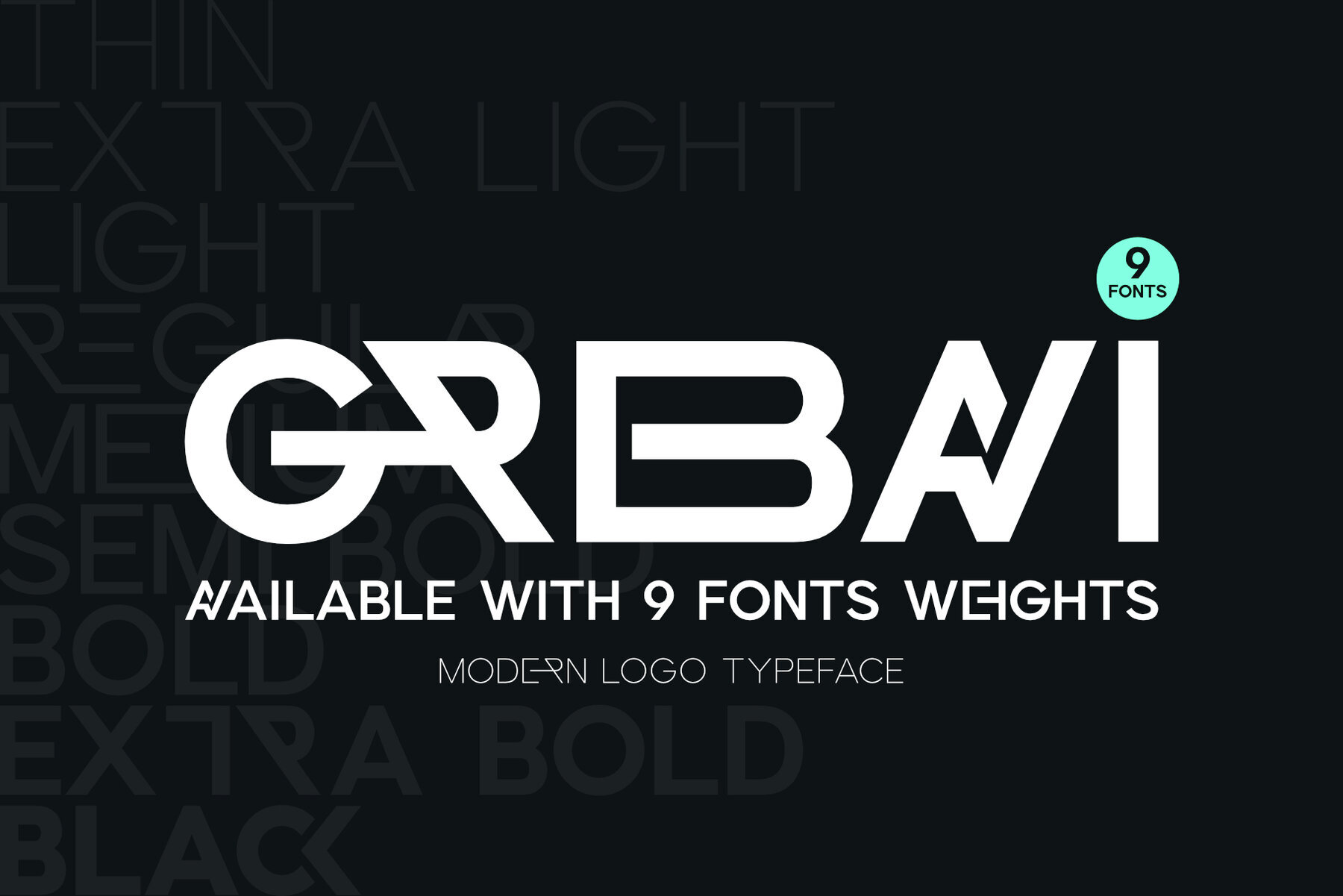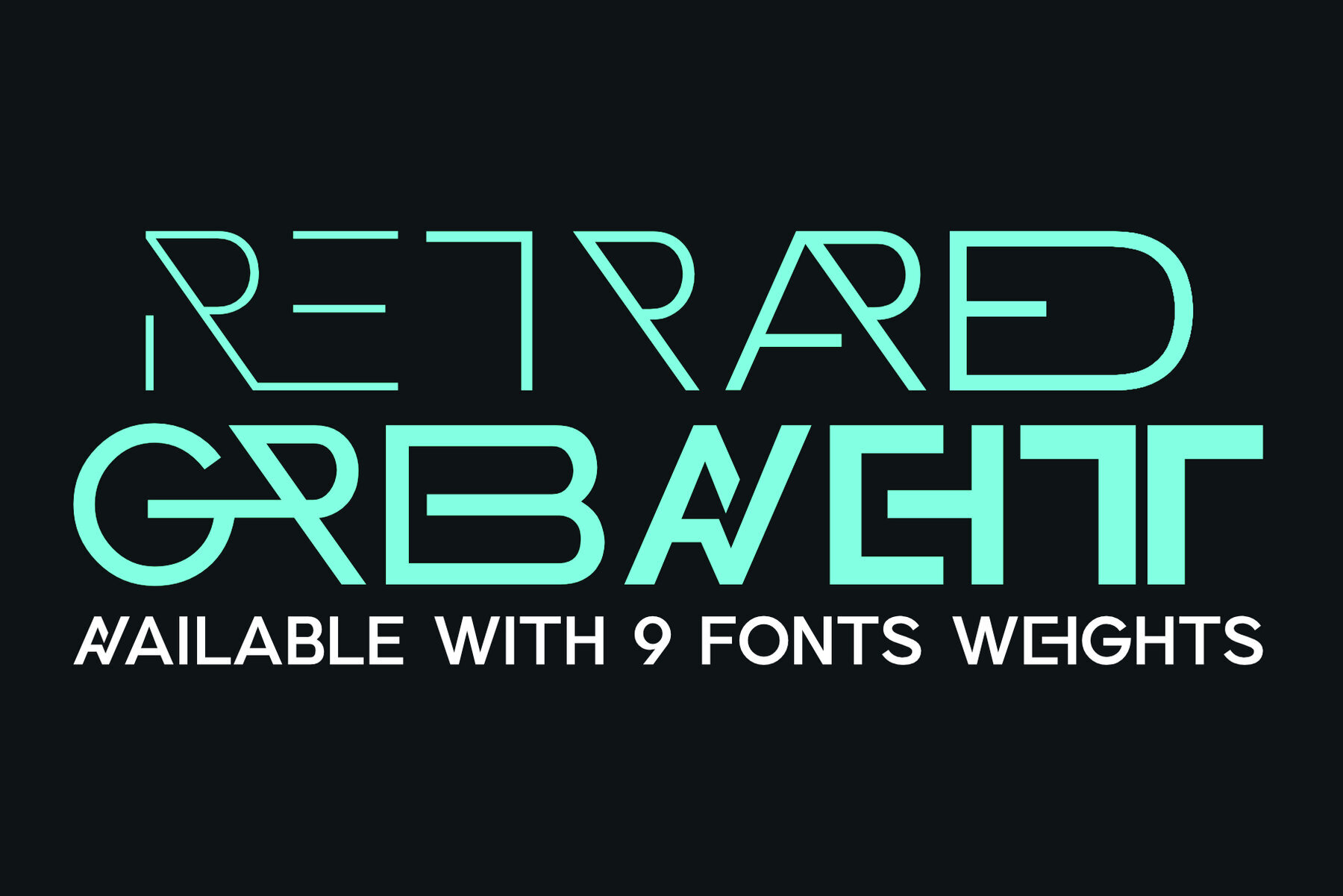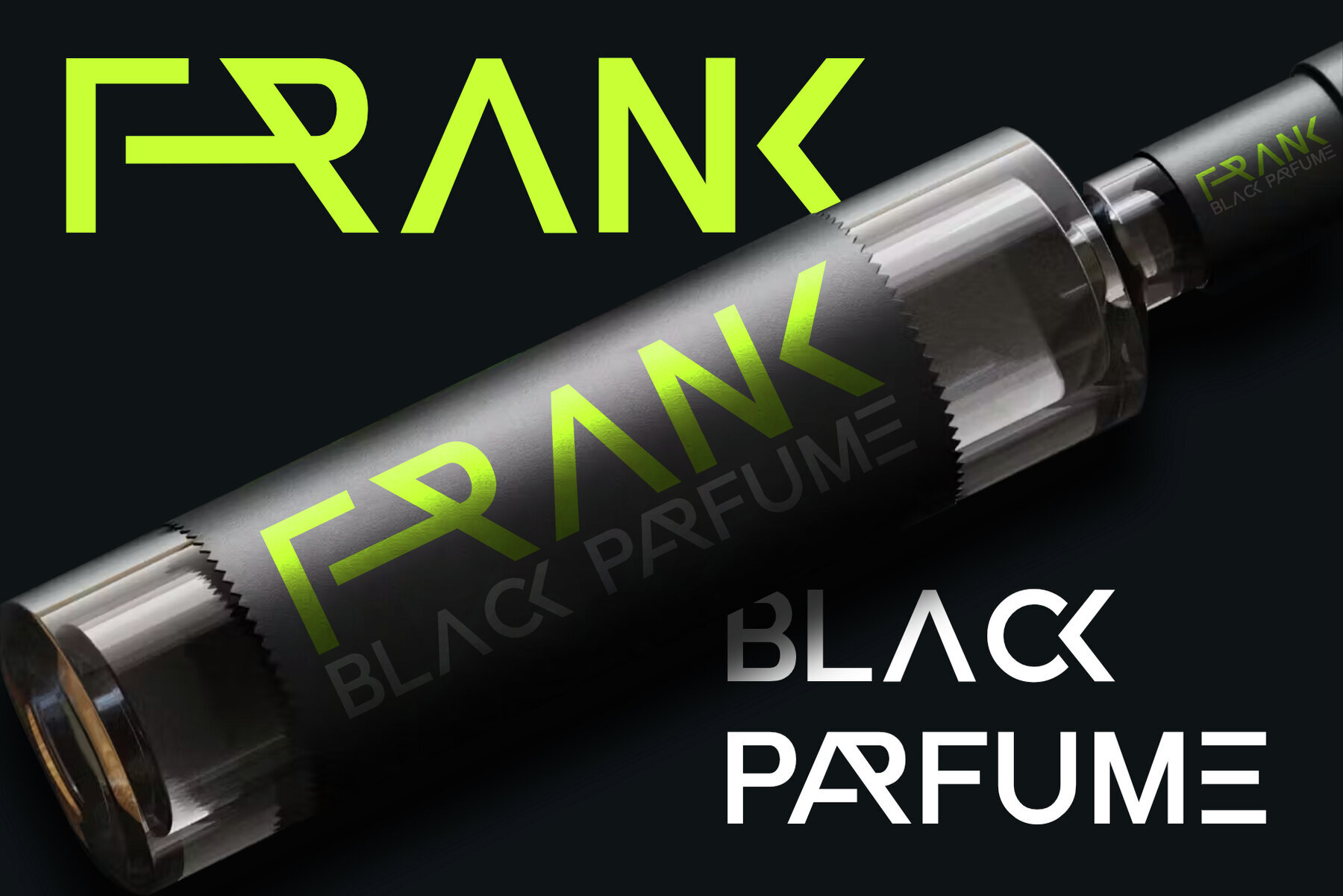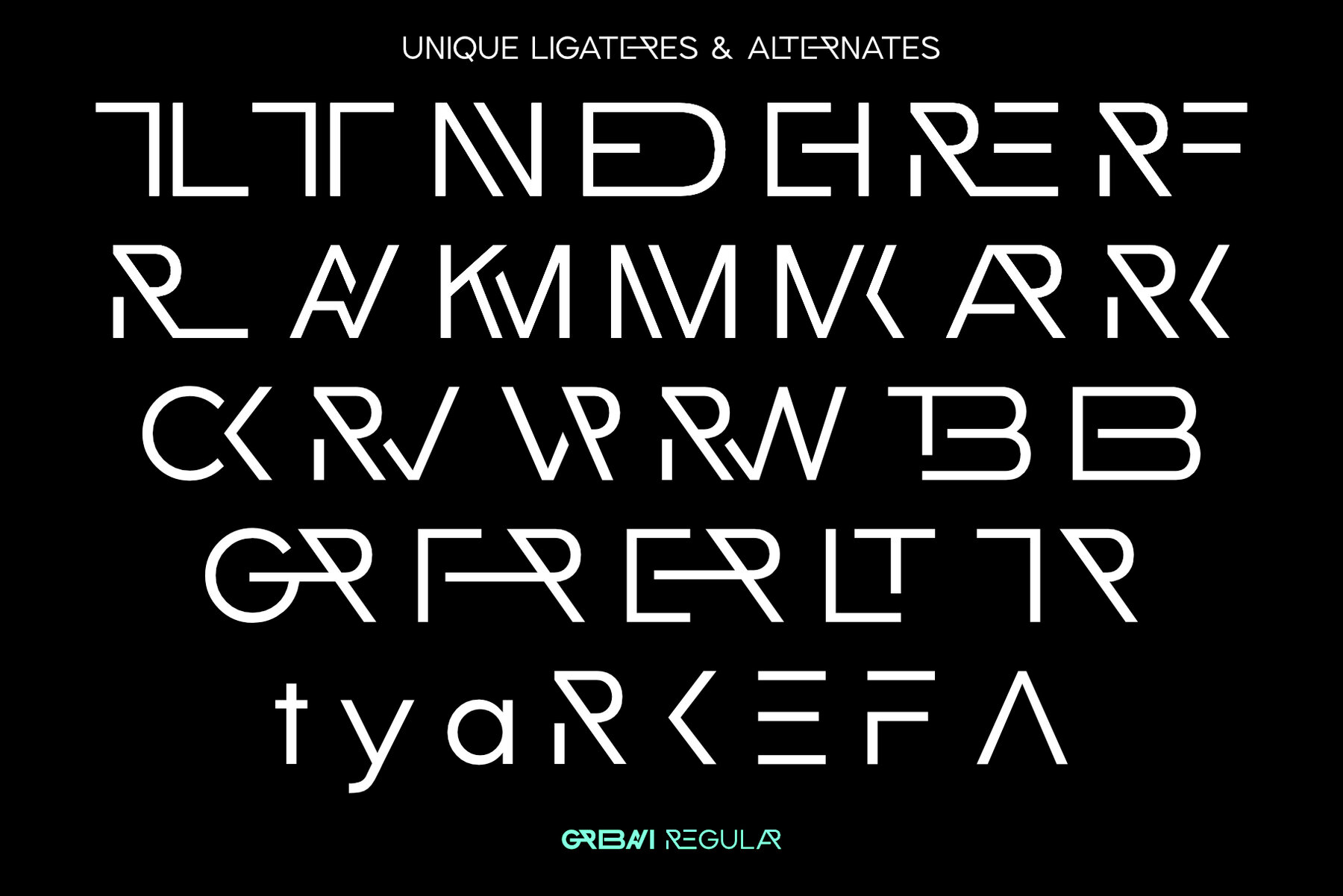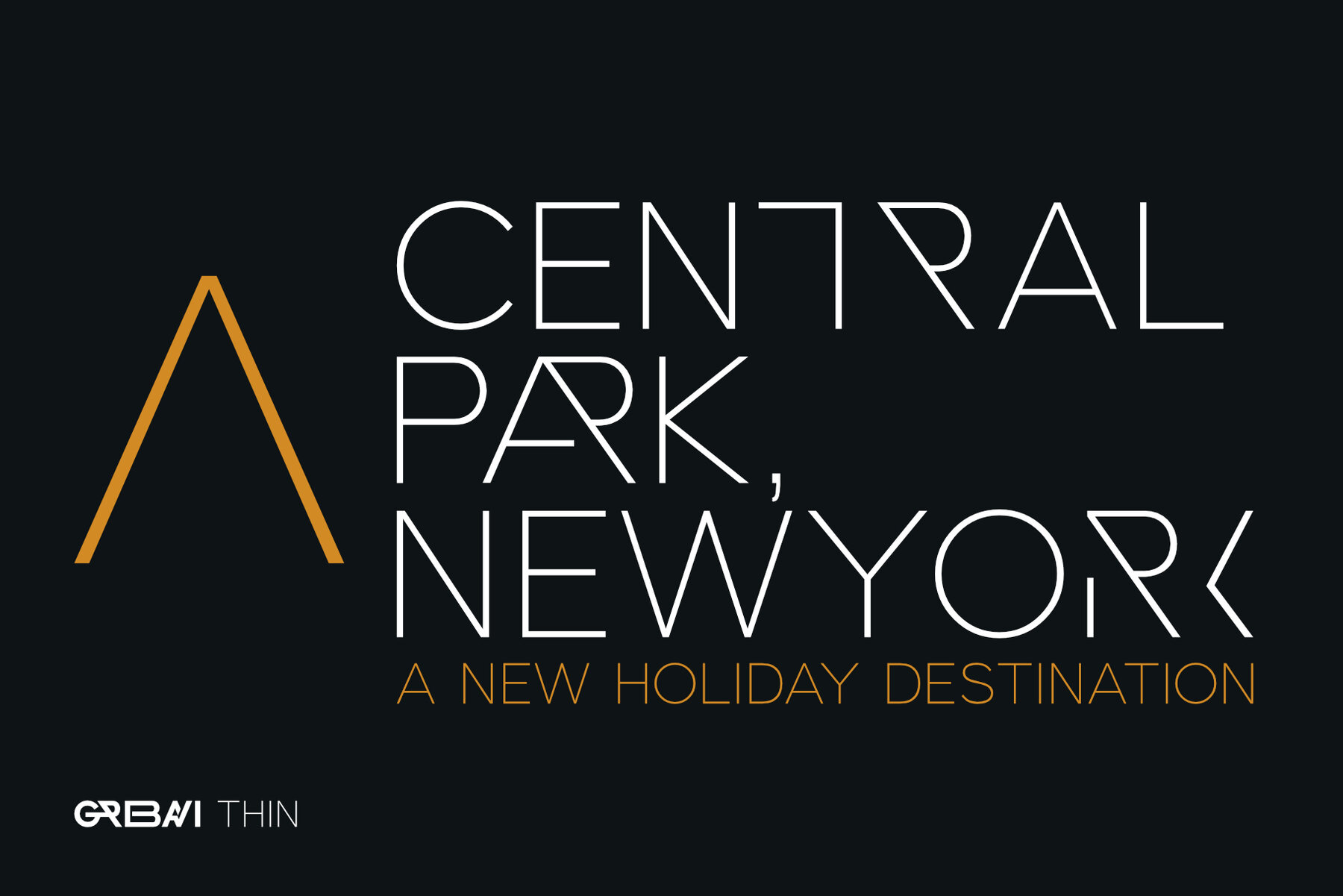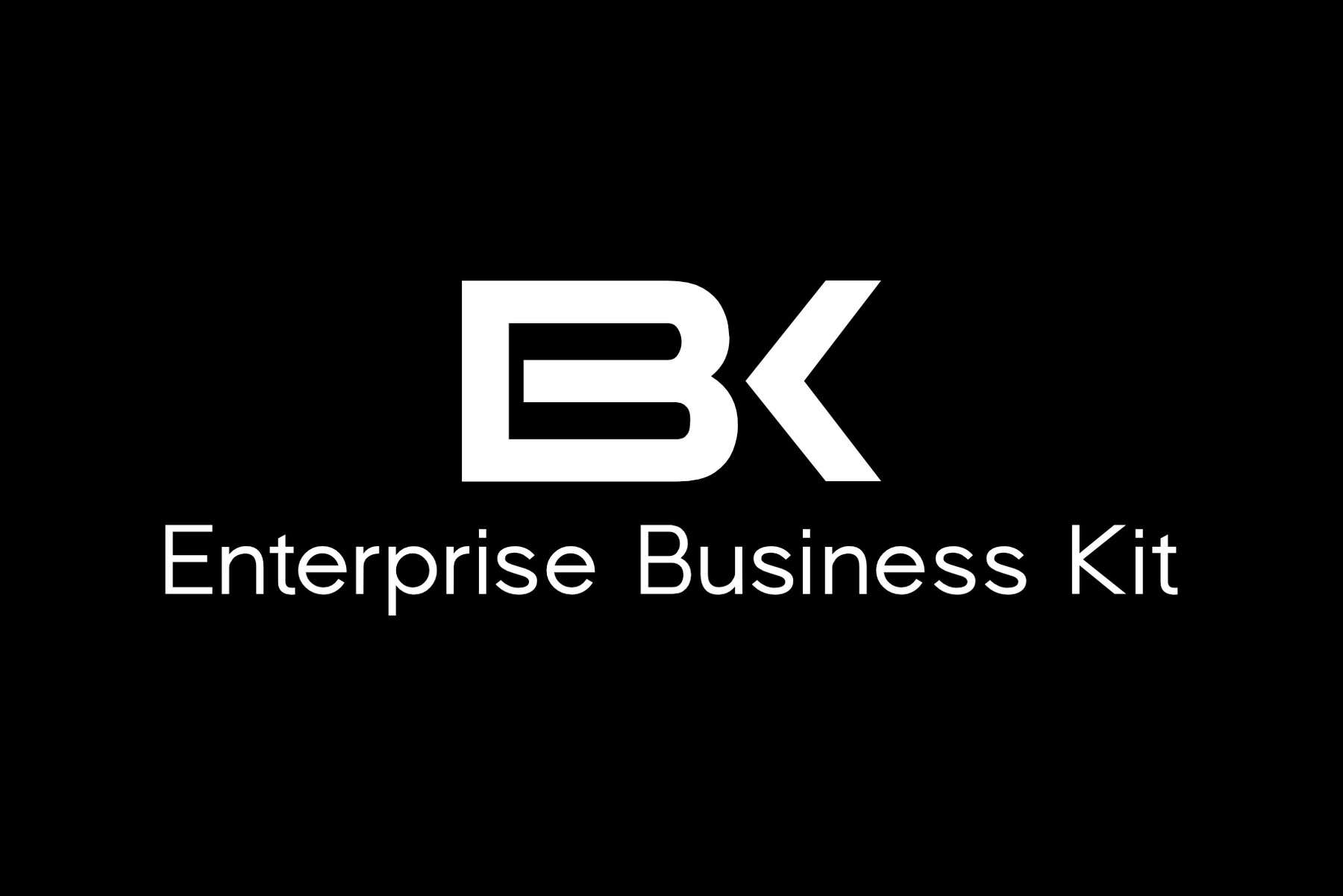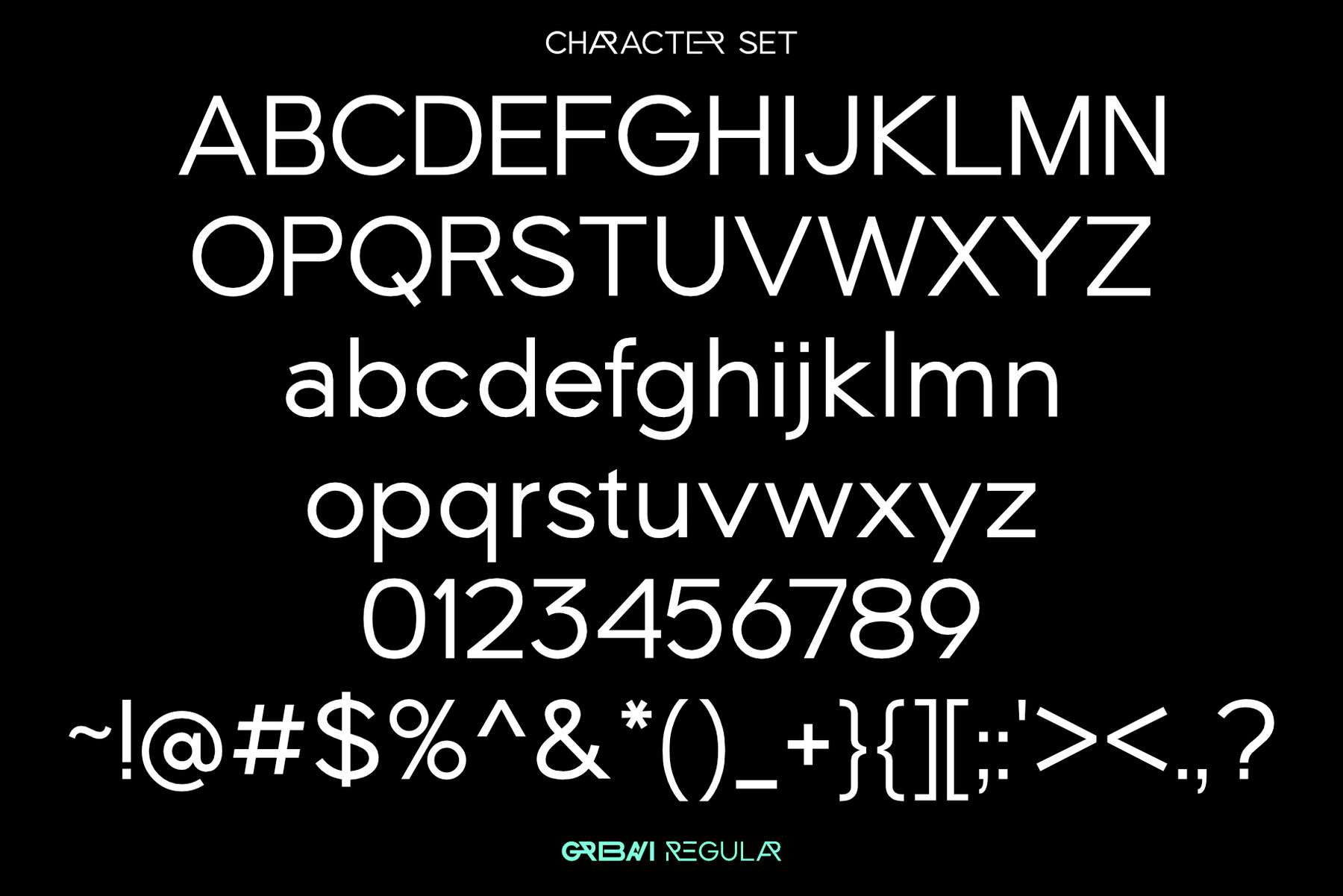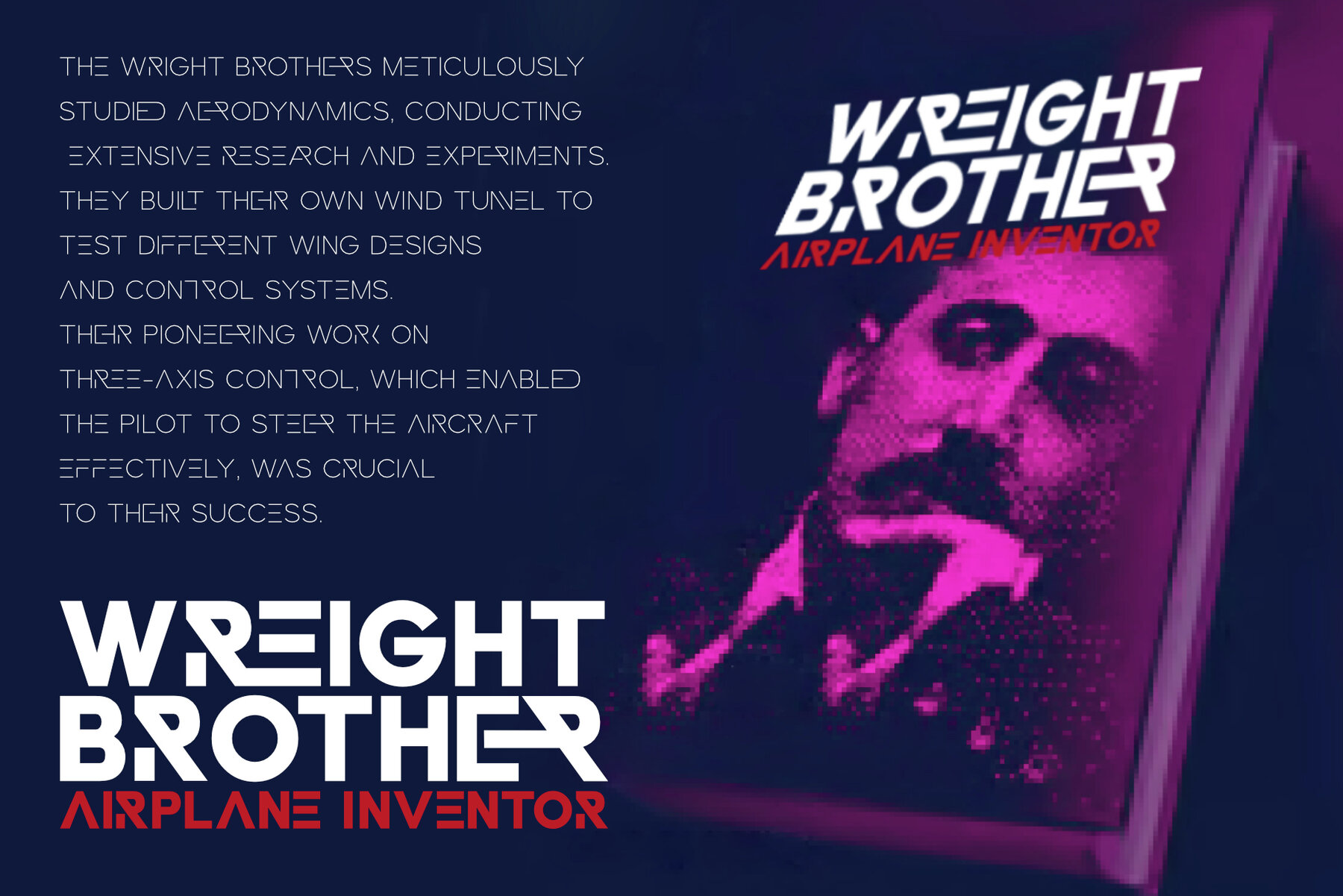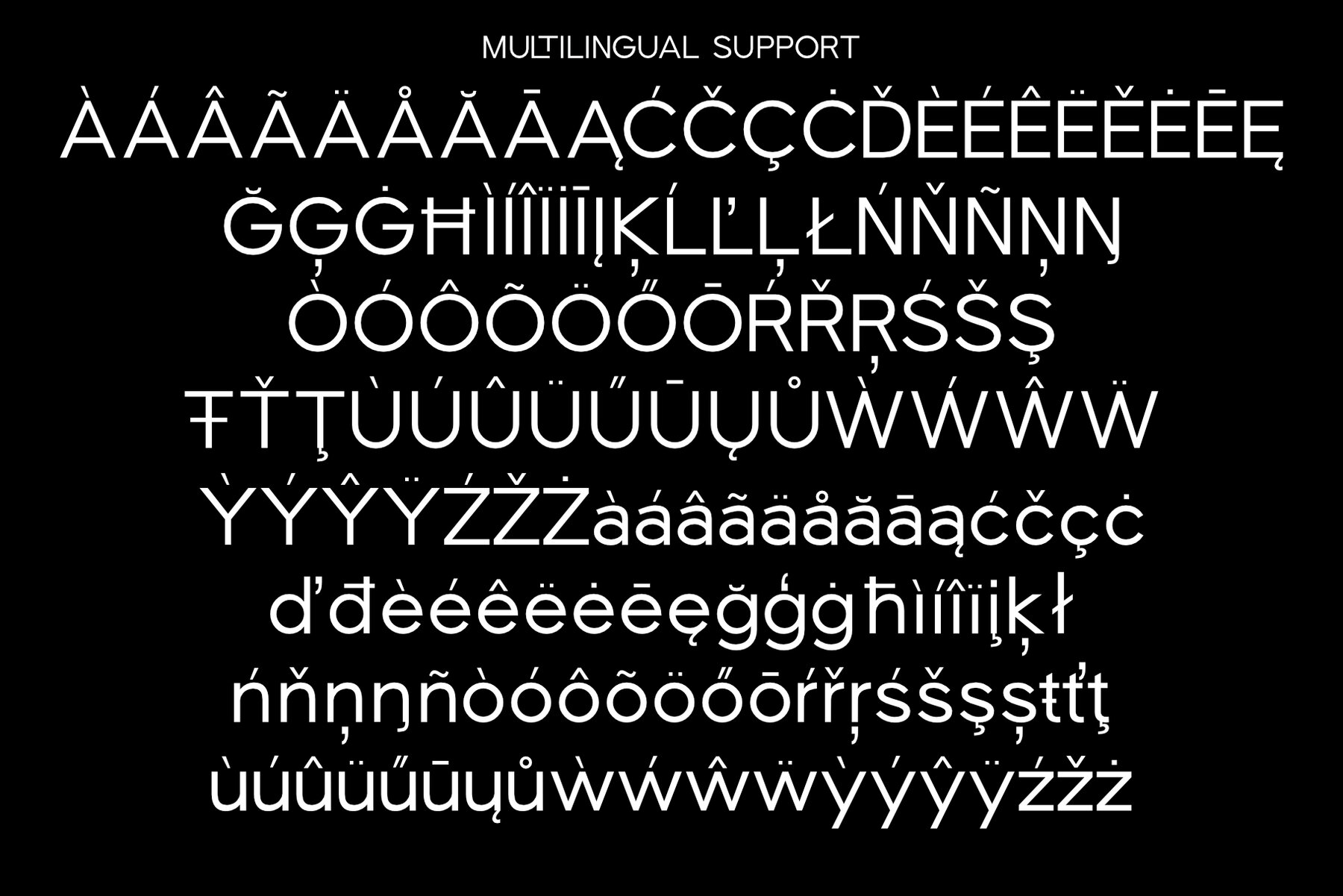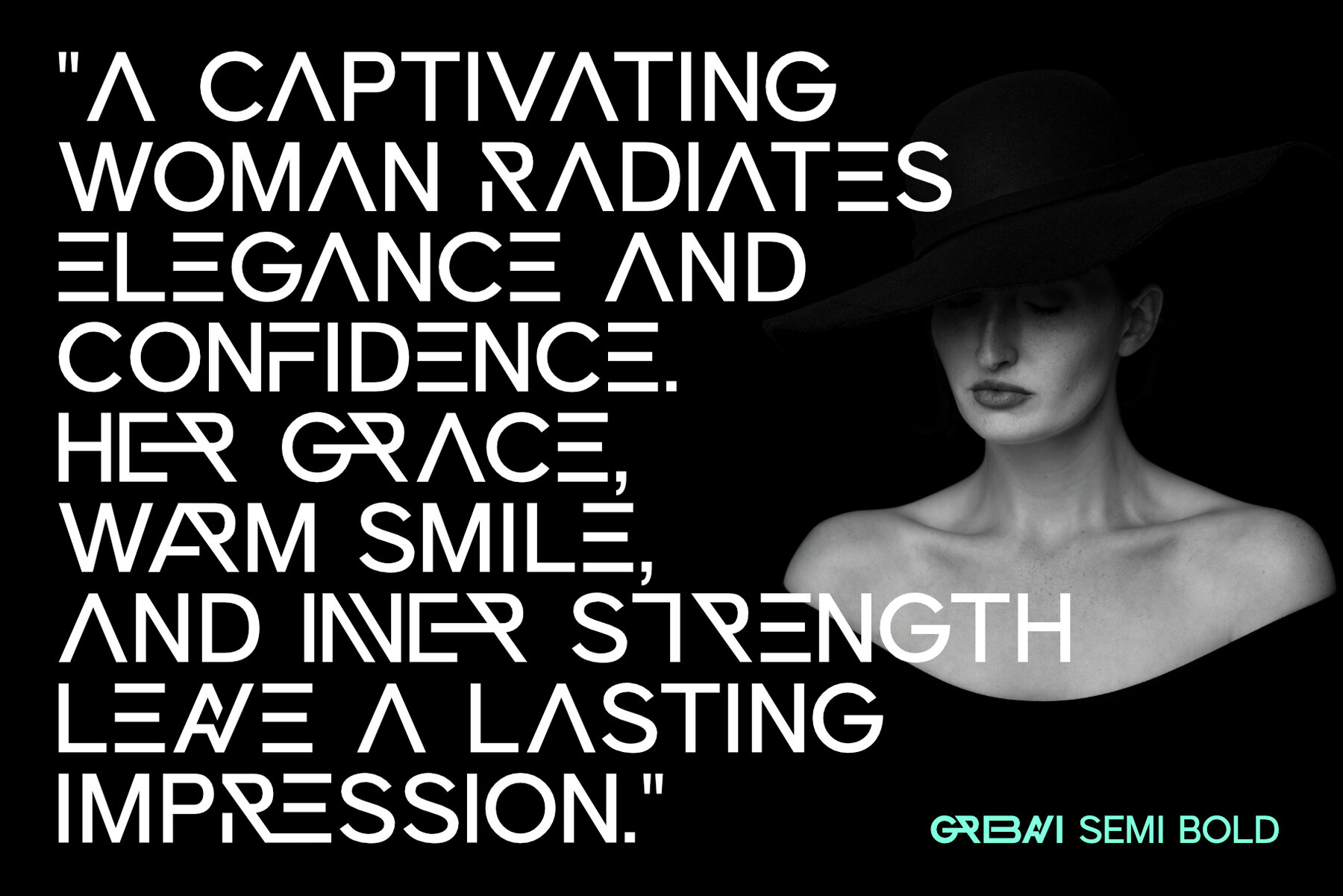
Grebavi Font
Grebavi is a modern, well-balanced sans serif font known for its minimalist and iconic design. Its unique character allows for easy creation of diverse variations and shapes by utilizing its extensive ligature options. This versatile font is ideal for branding projects, logos, poster designs, social media posts, advertisements, product packaging, labels, photography watermarks, invitations, and stationery, offering high legibility in all applications.
Included in the package are 9 different weights of Grebavi, providing a complete character set from A to Z, numerals, and punctuation. Additionally, users will find ligature and alternate characters that enhance design possibilities. Compatible with both PC and Mac, Grebavi works seamlessly with popular design software like Adobe Illustrator, Adobe Photoshop, Affinity Designer, Affinity Photo, and Canva.